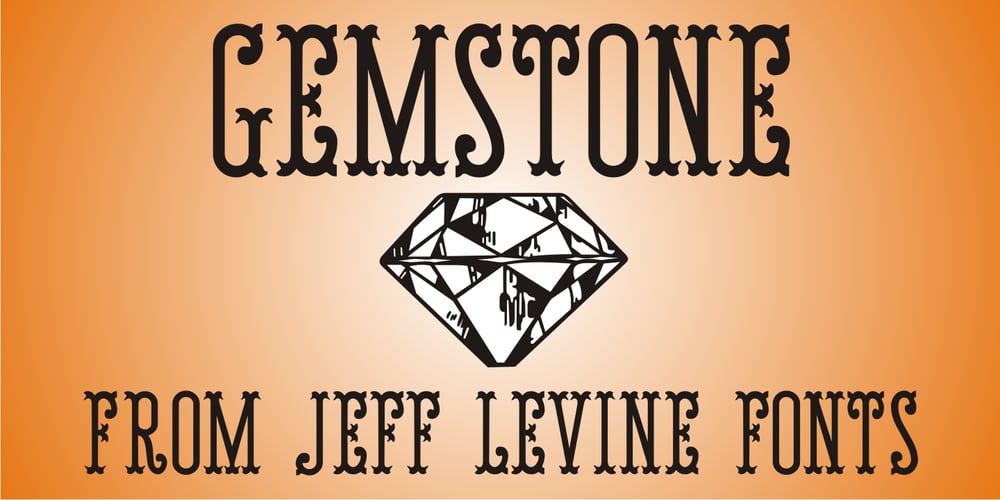
Gemstone JNL
Gemstone JNL font
Gemstone JNL Font Family was designed by Jeff Levine and published by Jeff Levine. Gemstone JNL contains 1 styles and family package options. A late-19th Century song book entitled “Gems of Scotland – A Beautiful Collection of Scottish Songs” had the words “Gems of Scotland” hand lettered in an ornate, condensed type style now reproduced digitally as Gemstone JNL.